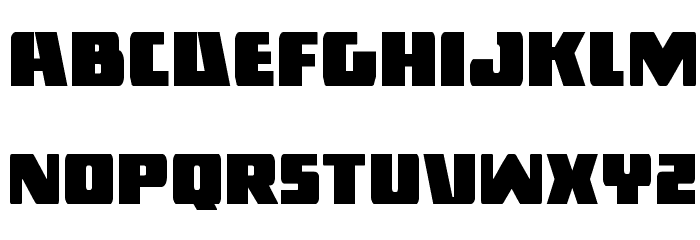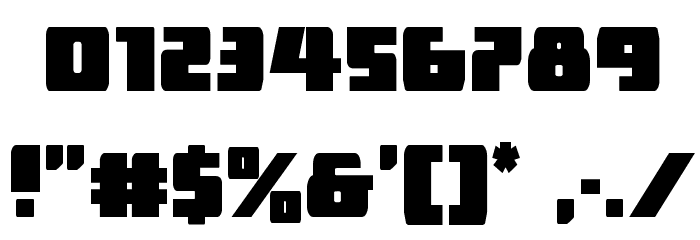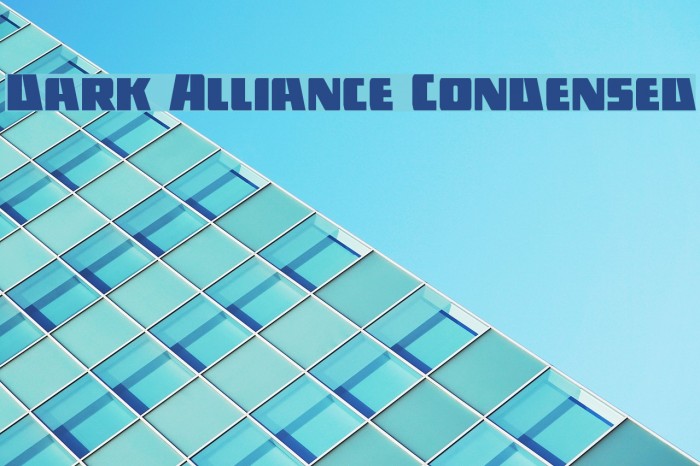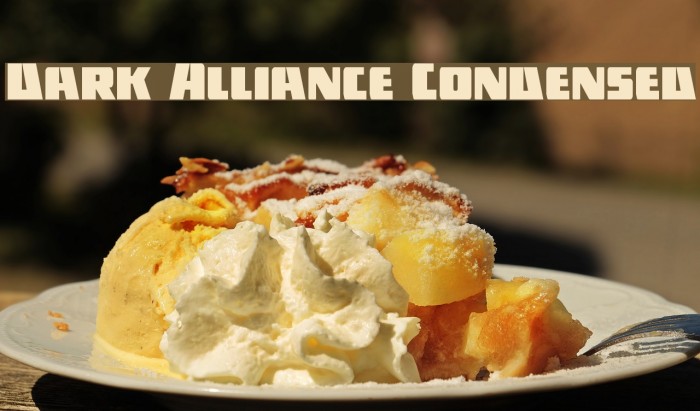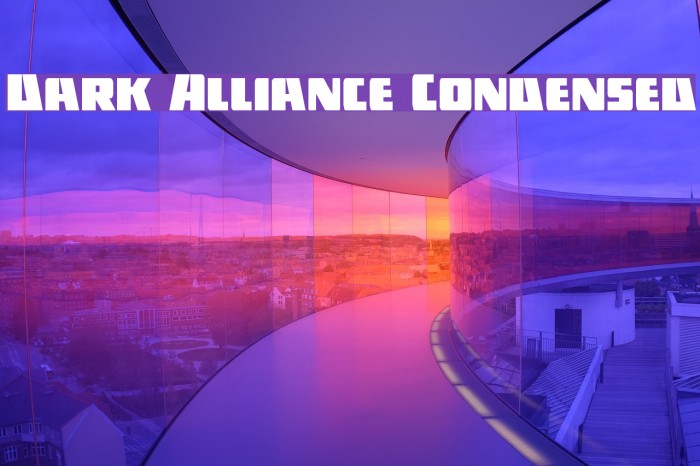
Dark Alliance Condensed Font
This font features a bold and condensed style with a strong geometric influence. The characters are blocky and robust, with a consistent thickness throughout, giving it a powerful and impactful appearance. The angular design and sharp edges contribute to its modern and futuristic feel. The uppercase and lowercase letters maintain a uniform height, enhancing its compact and cohesive look. The numerals and special characters are designed to match the boldness and angularity of the alphabet, ensuring visual harmony across all elements.
A bold, condensed font with geometric and angular characteristics.
- Font: Dark Alliance Condensed
- Proposed Projects: Ideal for use in video game titles, movie posters, branding for tech companies, or any project requiring a modern and impactful typeface.
- Character Spacing: Tight